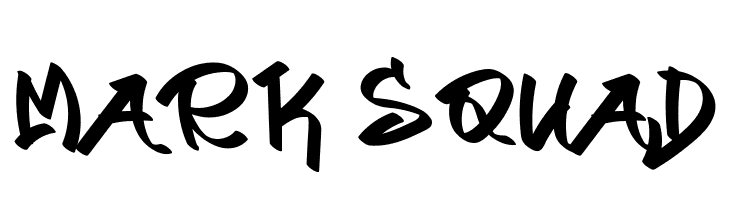
• Mark Squad 字体
A bold, graffiti-inspired font with dynamic, angular strokes and urban flair.
• Markazi Text Bold 字体
A bold, classic serif font with strong strokes and moderate contrast.
• Markazi Text Medium 字体
A classic serif font with medium weight and moderate contrast, offering elegance and readability.
• Markazi Text Regular 字体
A modern serif font with balanced strokes and elegant serifs.
• Markazi Text SemiBold 字体
A classic serif typeface with semi-bold weight and medium contrast, ideal for formal text.
• Marker 字体
A bold, hand-drawn marker-style font with a casual and expressive look.
• Marker Bold 字体
A bold, rounded font with a handwritten marker style.
• Marker Brush 字体
A bold, expressive brush-style font with dynamic, hand-drawn characteristics.
• Marker Comp 字体
A bold, handwritten-style font with a casual, marker-like appearance.